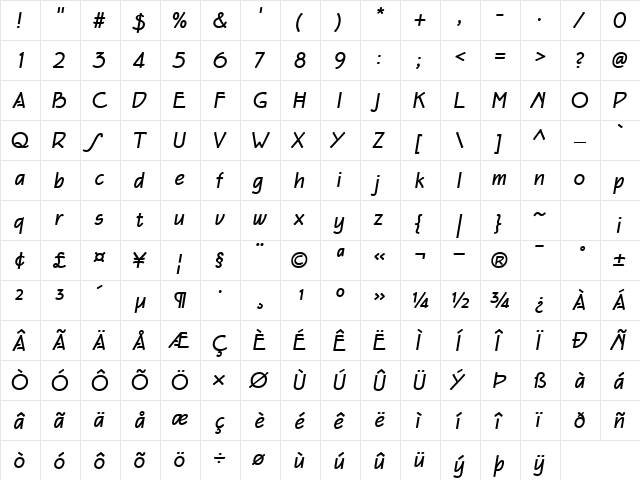
EaglefeatherFormalBoldItalic Regular Font Preview
Design Context for EaglefeatherFormalBoldItalic Typeface
EaglefeatherFormalBoldItalic takes a measured approach to typography — its balanced proportions and neutral character make it a reliable workhorse for both digital and print work. The slanted form adds forward momentum and visual energy. The heavy weight commands attention and anchors typographic hierarchies.
Pro Tip: Try EaglefeatherFormalBoldItalic for annotation and caption copy alongside an upright companion — the contrast in angle creates a dynamic but ordered typographic system.